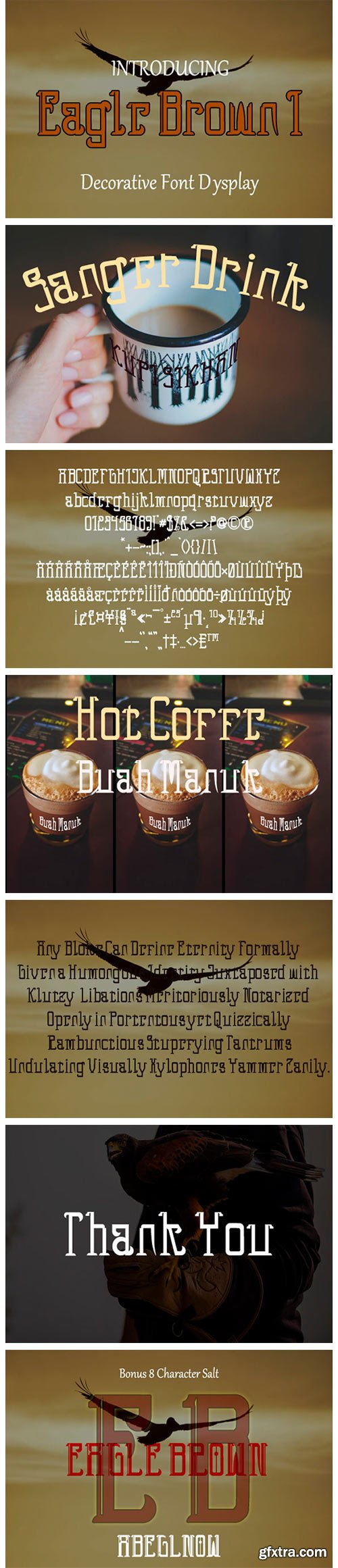
Eagle Brown 1 Font
Eagle Brown 1 feels playfully nostalgic and delivers an incredible vintage aesthetic. Use this display font to add that special retro touch to any design idea you can think of!